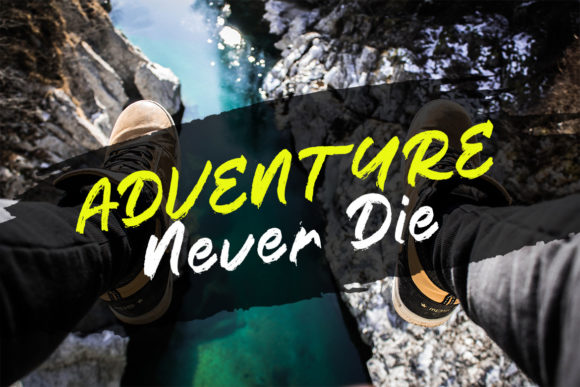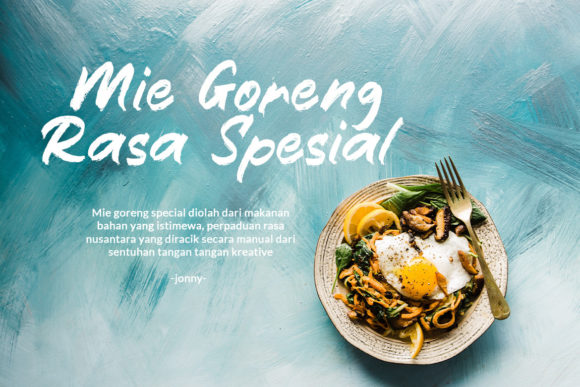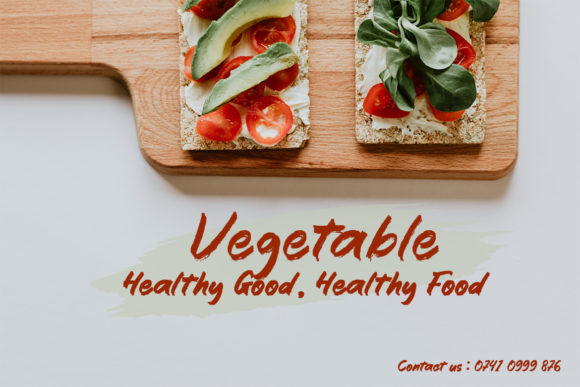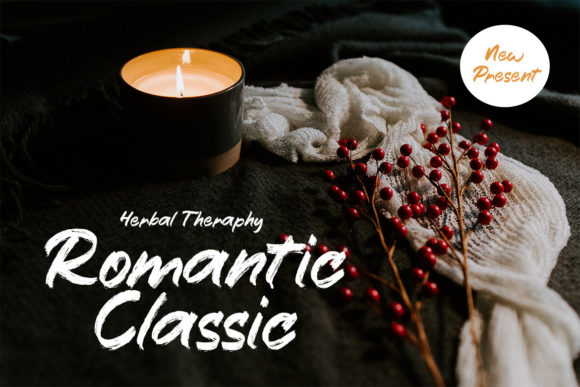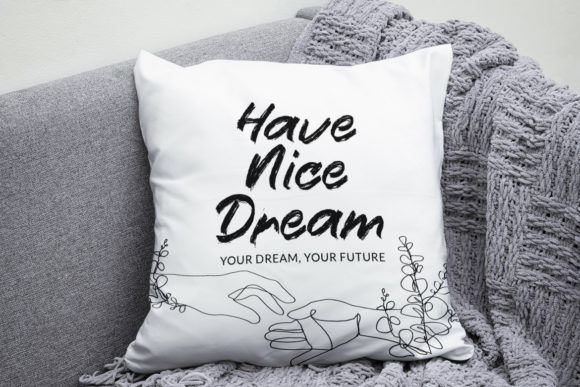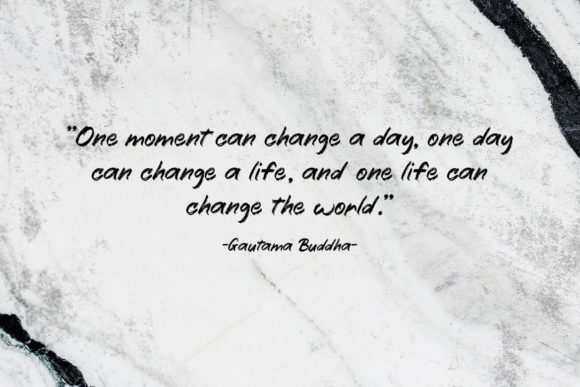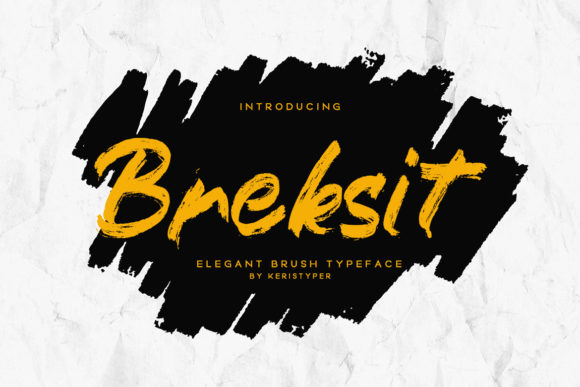
Introducing Breksit Font: The Perfect Companion for Adventure-Seeking Designers
Are you a designer or crafter looking for a font that embodies the spirit of adventure and bold character? Look no further than Breksit Font, a gorgeous, brushed handwritten font that’s perfect for a wide range of design projects. In this article, we’ll take a closer look at Breksit Font, its features, and how it can elevate your designs.
What is Breksit Font?
Breksit Font is a stunning, brushed handwritten font that’s designed to evoke a sense of adventure and freedom. Its bold, expressive letters are perfect for creating eye-catching designs that demand attention. Whether you’re working on a travel brochure, a logo, or a poster, Breksit Font is the perfect choice for designers who want to add a touch of personality to their work.
Key Features of Breksit Font
So, what makes Breksit Font so special? Here are just a few of its key features:
• Brushed Handwritten Style: Breksit Font features a beautiful, brushed handwritten style that’s perfect for creating designs that look like they were drawn with a brush.
• Adventure Vibe: The font’s bold, expressive letters are designed to evoke a sense of adventure and freedom, making it perfect for travel and outdoor-related designs.
• Bold Character: Breksit Font has a bold, confident character that’s perfect for creating designs that demand attention.
• Versatile: Breksit Font is perfect for a wide range of design projects, including logos, posters, branding, packaging, signage, book covers, and more.
Use Cases for Breksit Font
So, how can you use Breksit Font in your designs? Here are just a few ideas to get you started:
• Travel and Tourism Designs: Breksit Font is perfect for travel brochures, travel posters, and other designs that need to evoke a sense of adventure and freedom.
• Logos and Branding: The font’s bold, expressive letters make it perfect for creating logos and branding materials that need to stand out.
• Posters and Flyers: Breksit Font is perfect for creating eye-catching posters and flyers that demand attention.
• Packaging and Signage: The font’s bold character makes it perfect for packaging and signage that needs to stand out.
• Book Covers: Breksit Font is perfect for book covers that need to evoke a sense of adventure and excitement.
Tips for Using Breksit Font
Here are just a few tips for using Breksit Font in your designs:
• Use it with a bold background: Breksit Font’s bold character really pops against a bold background, so try using it with a bright color or texture.
• Experiment with different colors: The font’s brushed style looks great in a range of colors, so don’t be afraid to experiment and find the perfect hue for your design.
• Use it sparingly: Breksit Font is a bold font, so use it sparingly to add emphasis and create visual interest.
Font Name Breksit Font
Author Keristyper
In conclusion, Breksit Font is a stunning, brushed handwritten font that’s perfect for designers and crafters who want to add a touch of adventure and personality to their work. With its bold, expressive letters and versatile design, Breksit Font is perfect for a wide range of design projects, from travel and tourism designs to logos and branding materials. So why not give it a try and see how it can elevate your designs?